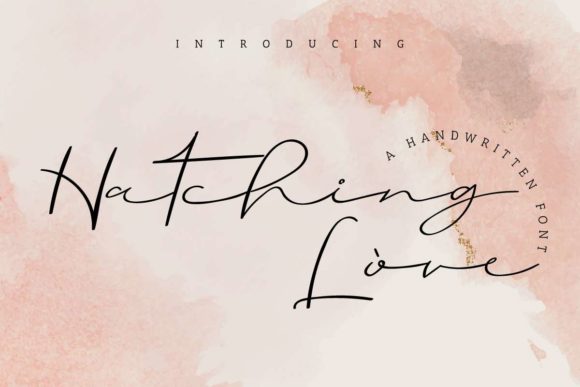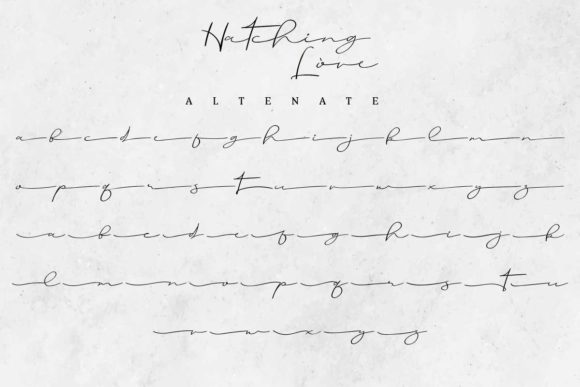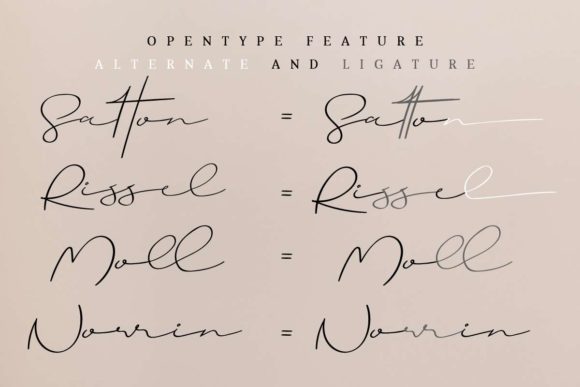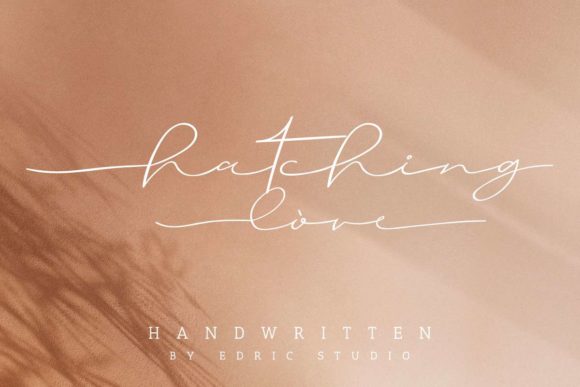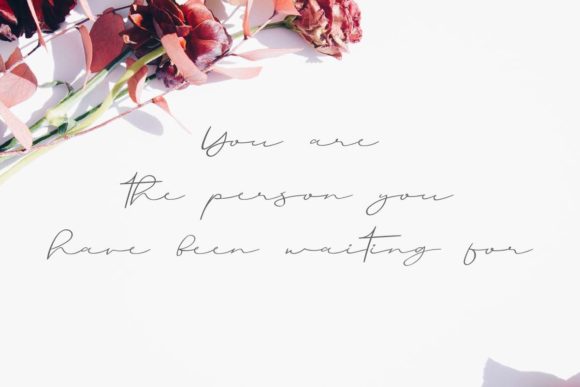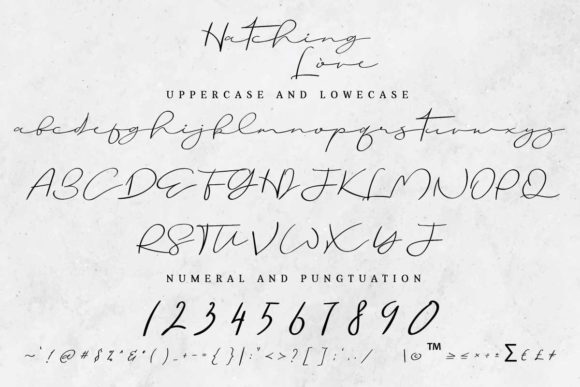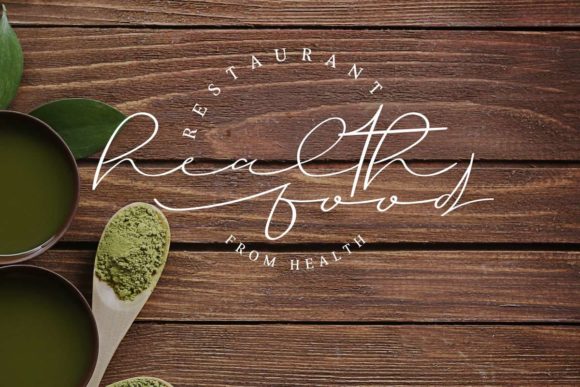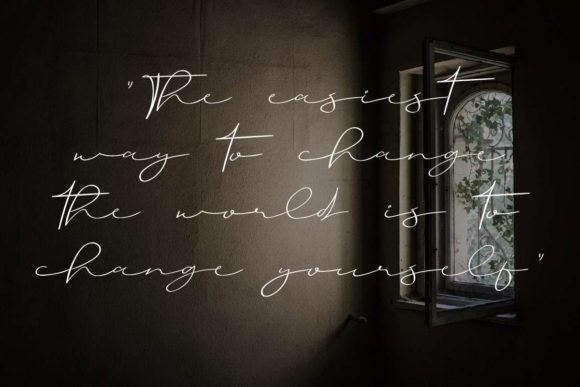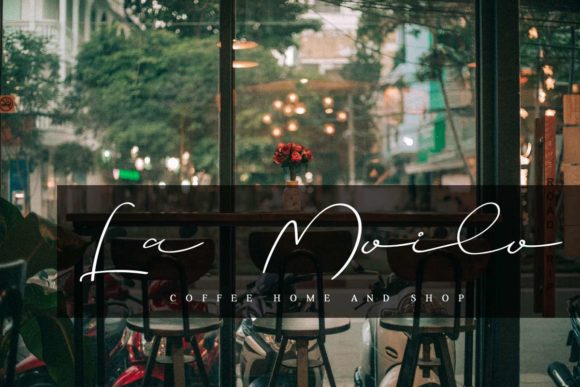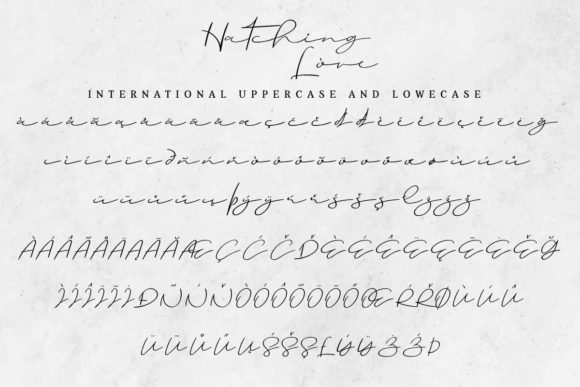
Hatching Love Font
Hatching Love is artful, but also elegant. This versatile script font has a wide range of applications ranging from headlines to branding, and is guaranteed to add a magical touch to your next design.
This font is PUA encoded which means you can access all of the gorgeous glyphs and swashes with ease! It also features a wealth of special features including alternate glyphs and ligatures.